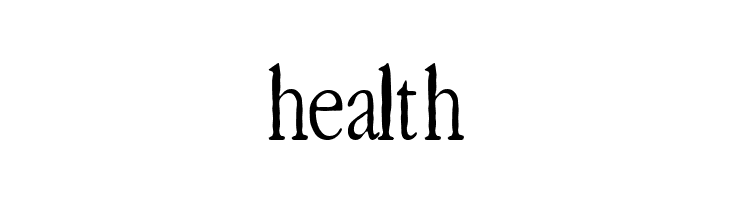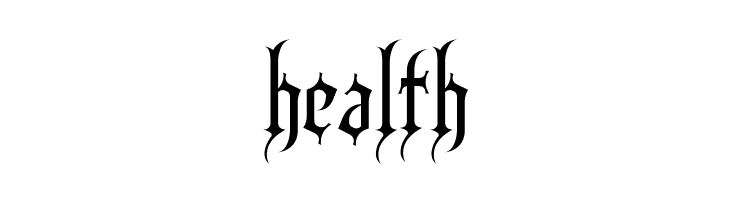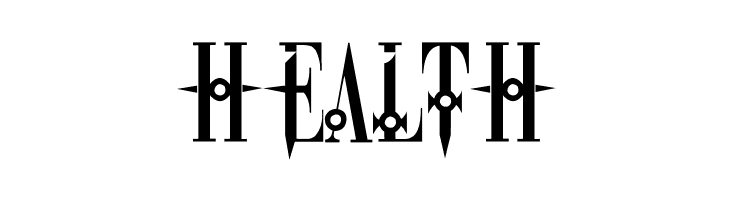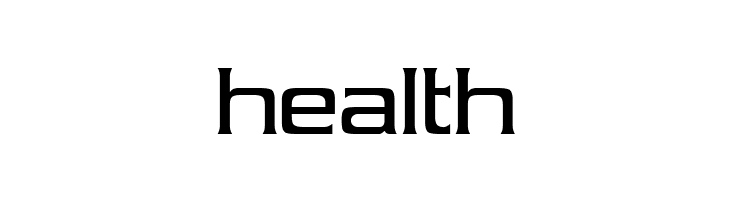
A modern, narrow sans-serif font with clean lines and balanced spacing.
A decorative font with letters inside turkey silhouettes, ideal for festive themes.
A bold, rounded font with a vintage yet modern appeal.
A bold, geometric font with Art Deco influences, ideal for modern and stylish designs.
A casual handwritten font with dynamic strokes and an informal style.
A sharp, edgy font with angular strokes and dynamic energy.
A sleek, modern font with tall, narrow characters and a minimalist aesthetic.
A playful, hand-drawn font with quirky, decorative letterforms.
A geometric, grid-based font with a modern, digital appearance.
A modern, geometric font with tall, narrow characters and consistent stroke width.
A futuristic outline font with a geometric and digital style.
An organic, vine-like font with jagged edges and a hand-drawn feel.
A modern, angular font with a geometric and futuristic style.
A bold, italicized font with a futuristic and angular design.
A tall, narrow, and modern font with consistent stroke width.
A bold, dripping font with a rebellious, graffiti-inspired style.
An angular, geometric font with bold, sharp edges.
A futuristic, geometric outline font with consistent height and stylized characters.
A bold, italic font with a dynamic and energetic style.